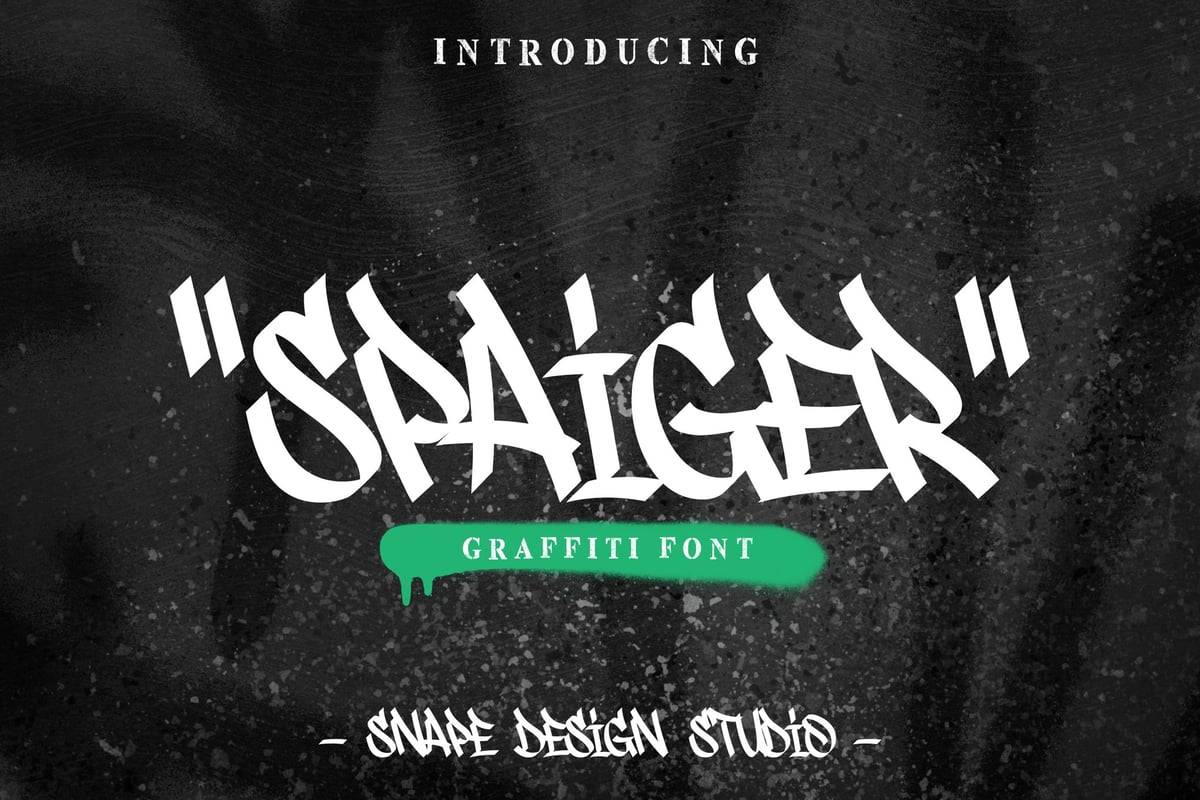
Spaiger - Graffiti Font
Transform your designs with SPAIGER, a bold graffiti-inspired display font that captures authentic street art energy. This striking typeface draws inspiration from classic street art calligraphy and graffiti tag styles, making it the perfect choice for projects that demand an edgy, urban aesthetic. Whether you're working on movie titles, documentaries, film projects, logos, posters, game interfaces, book covers, headlines, or attention-grabbing titles, SPAIGER delivers the raw authenticity your ...